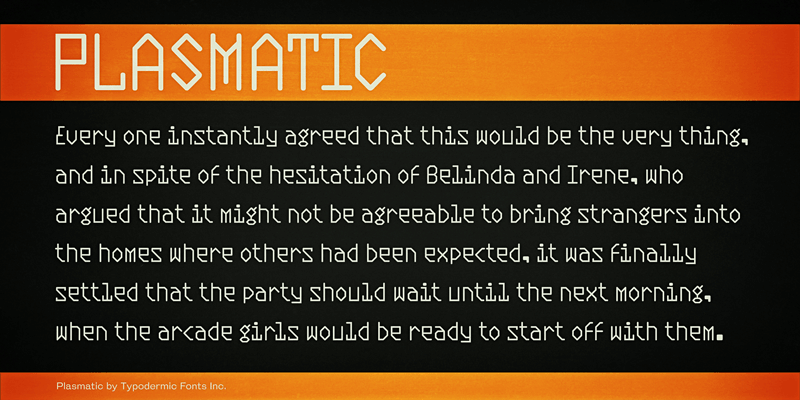
Plasmatic, created in 1999, is a parody of optical character recognition (OCR) types of the 1960’s. This updated versions has improved precision, better spacing, better kerning and more language support. Lots of punctuation and symbols have been added as well as fractions and numeric ordinals. Plasmatic now includes the new Indian rupee symbol. Vertical metrics have been improved for better web performance. This font includes a license that allows free commercial use: sometimes referred to as a desktop license. This allows you to install the font on a computer and use it to create posters, web graphics, game graphics, t-shirts, videos, signs, logos and more. Read the license agreement for details. If you'd like to embed this font in an app, ebook, on the web or anything that's not covered by the desktop license agreement, visit the link below. You'll find distributors who offer different types of licenses or you can contact me for help. http://typodermicfonts.com/plasmatic/ |